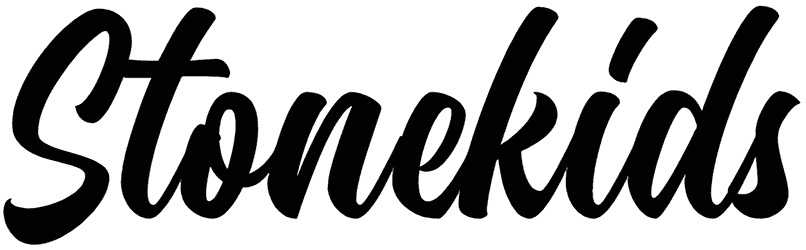
Stonekids Font
Stonekids font is for those who like to bring an incredibly lovable and attractive kids’ design for children. Handwritten and interesting playful characters of this script font can be found in creating flyers, summer posters, and many birthday themes, as well as animations and stationery such as pencils and markers with the fact that it does not support number letters.